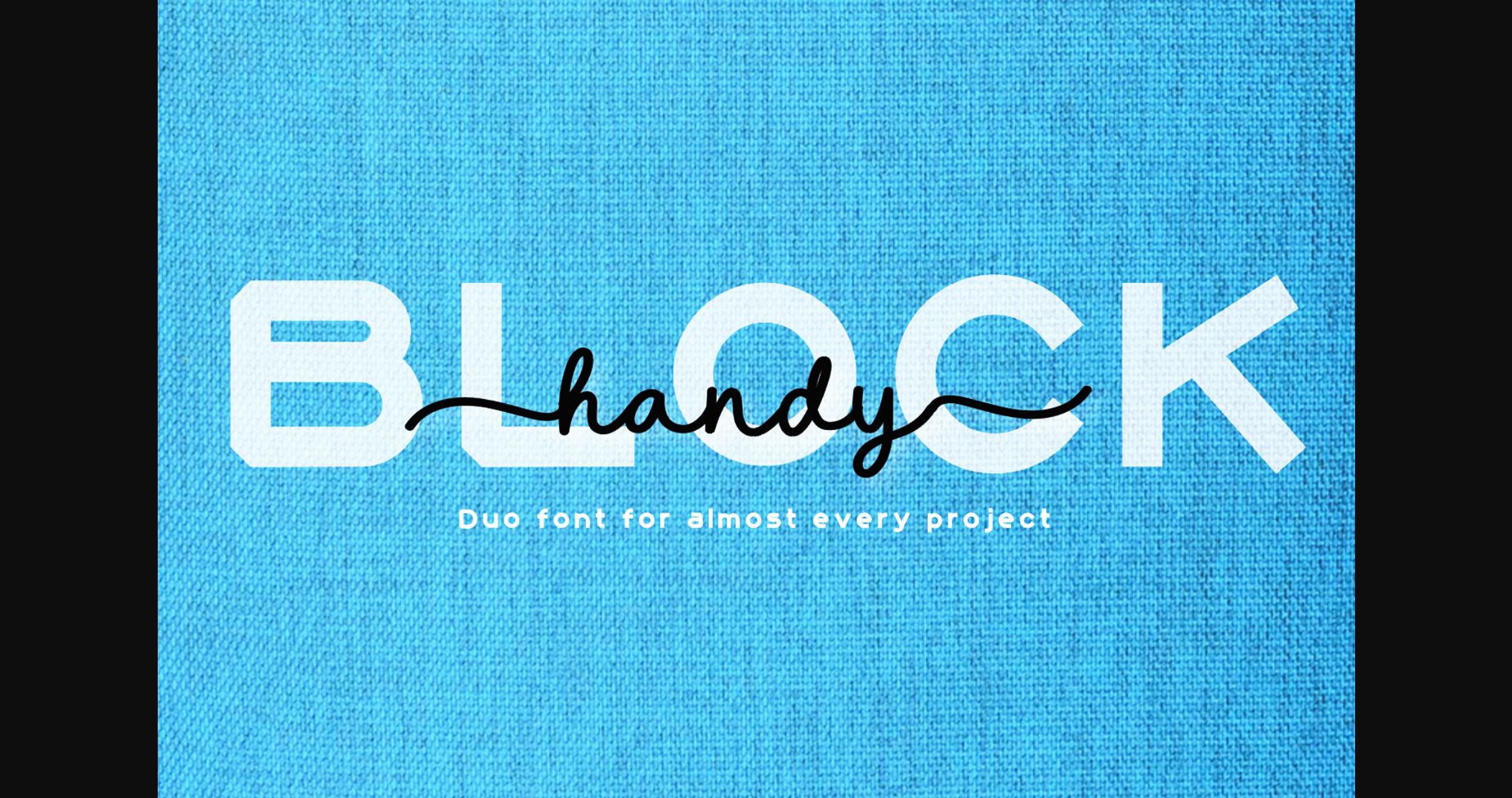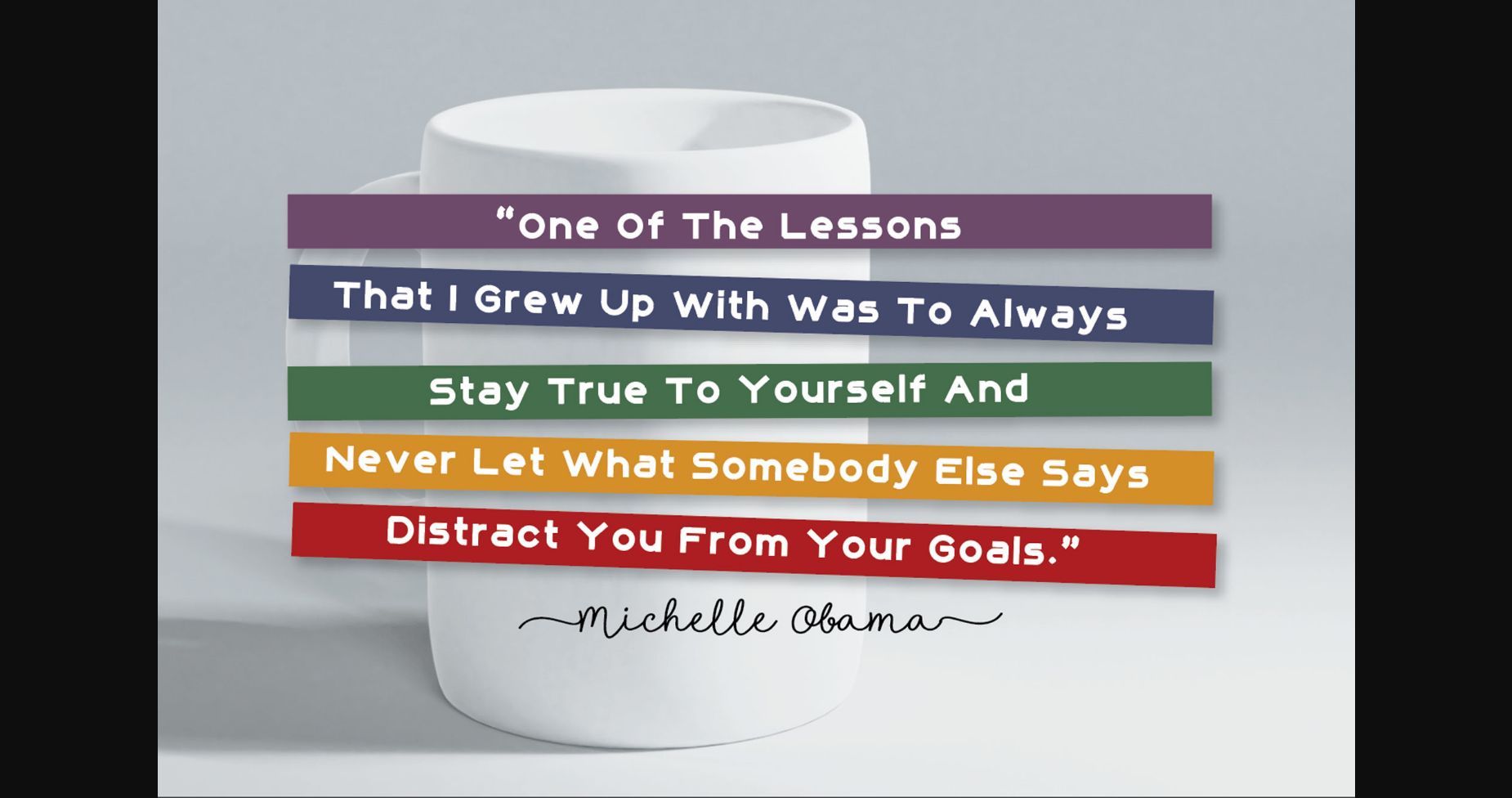
About Handy Block Font
Handy block is a simple duo font (handwritten and sans serif) that can easily fit most design projects. You can use it to complement each other in various projects and crafty ideas!